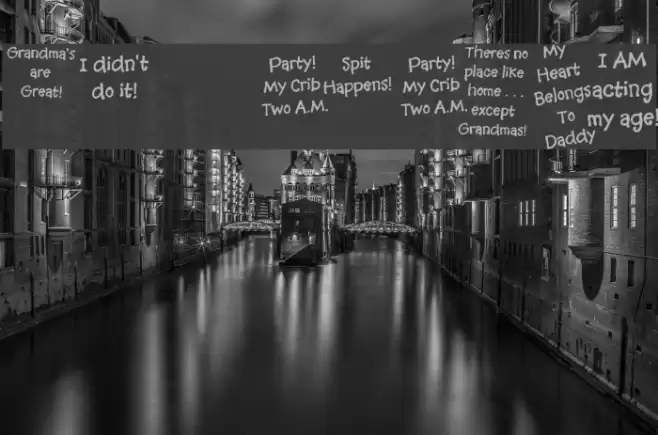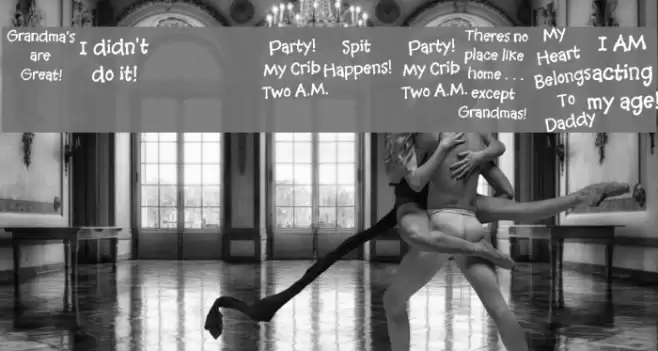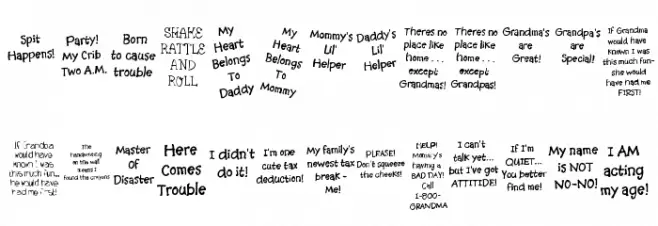
KR Babiez Font
KR Babiez Description
This playful and whimsical font features a hand-drawn, childlike style that exudes a sense of fun and creativity. The letters are irregular and slightly tilted, giving them a dynamic and lively appearance. The strokes are uneven, adding to the casual and informal feel of the font. It captures a sense of innocence and spontaneity, making it ideal for projects that aim to convey a youthful or playful tone. The font's unique character shapes and varying sizes contribute to its distinctive personality, making it stand out in any design. It's perfect for adding a touch of charm and whimsy to children's books, playful branding, or any creative project that seeks to evoke a sense of joy and imagination.
A playful, hand-drawn font with a whimsical, childlike style from Uncategorized fonts.
- Proposed Projects: Ideal for children's books, playful branding, greeting cards, and creative projects.
- Overall Style: Playful
- Use Case: Children's books, Playful branding, Greeting cards